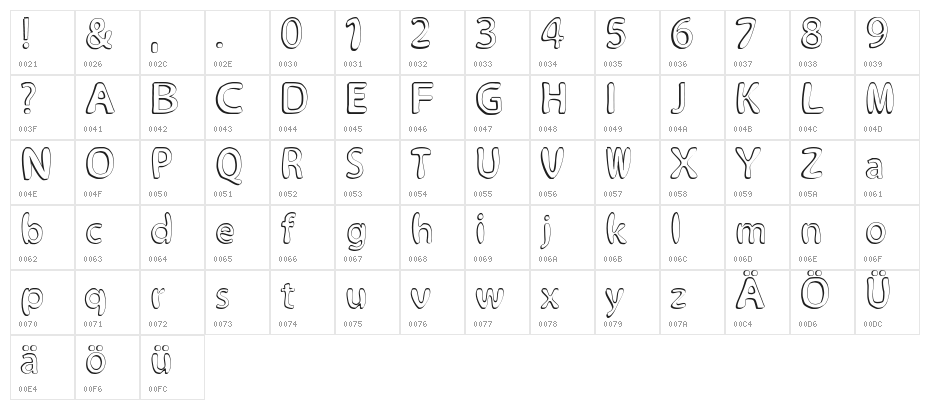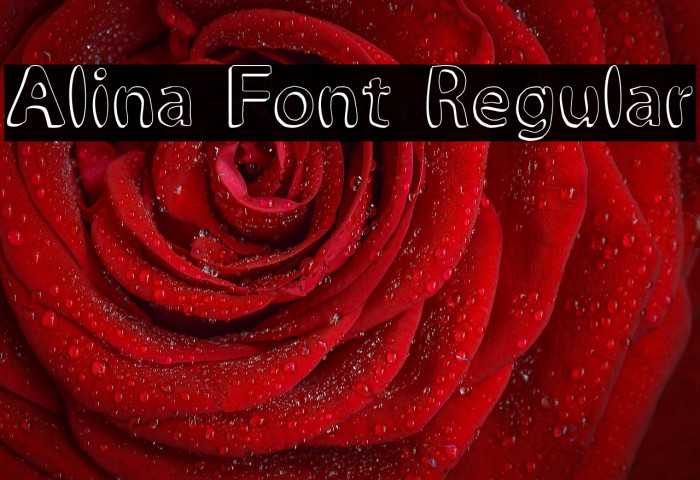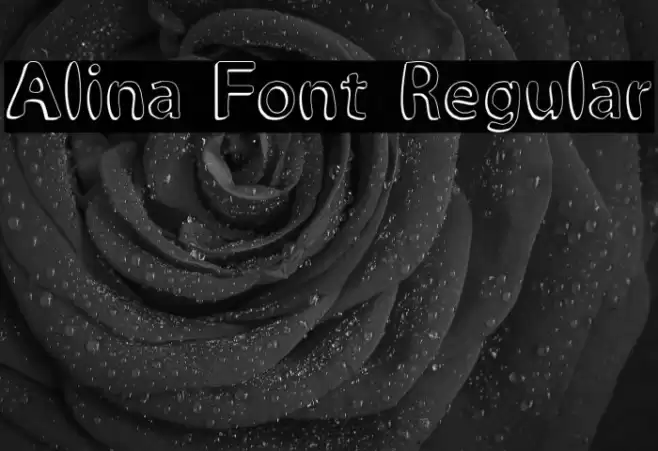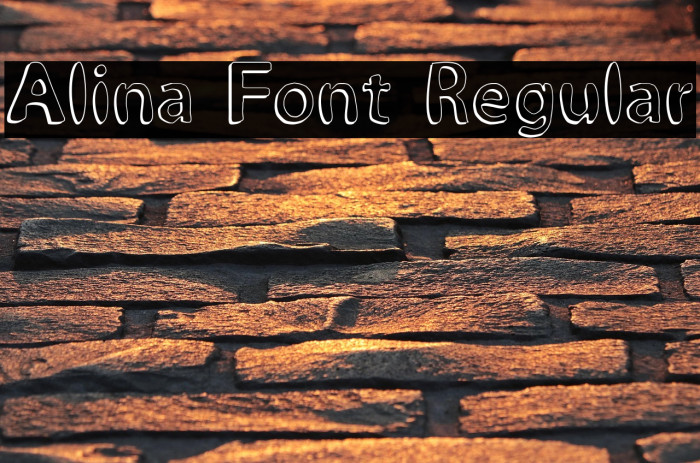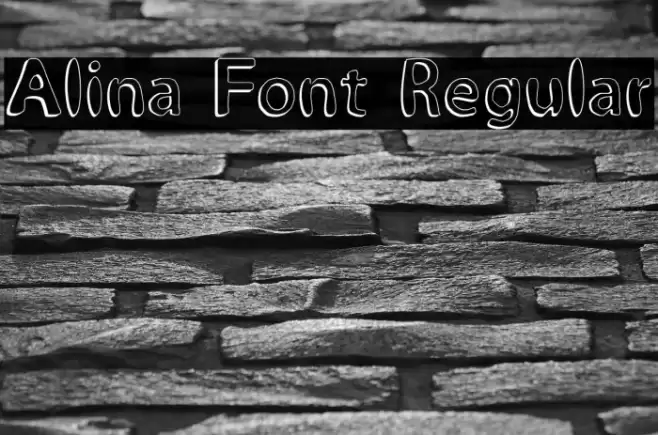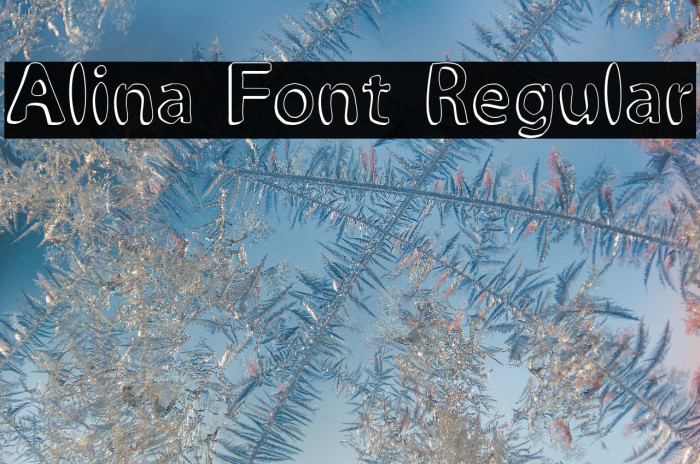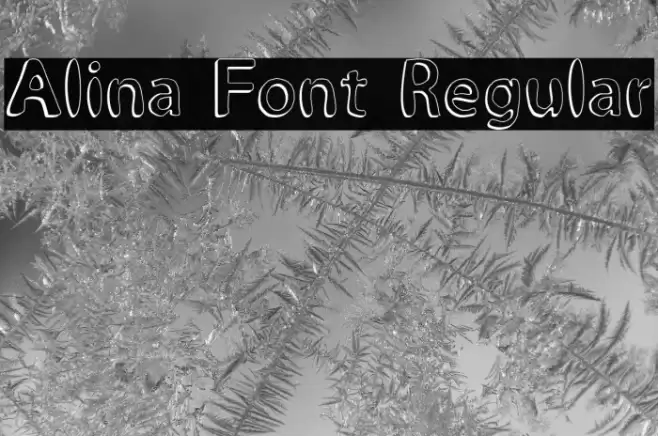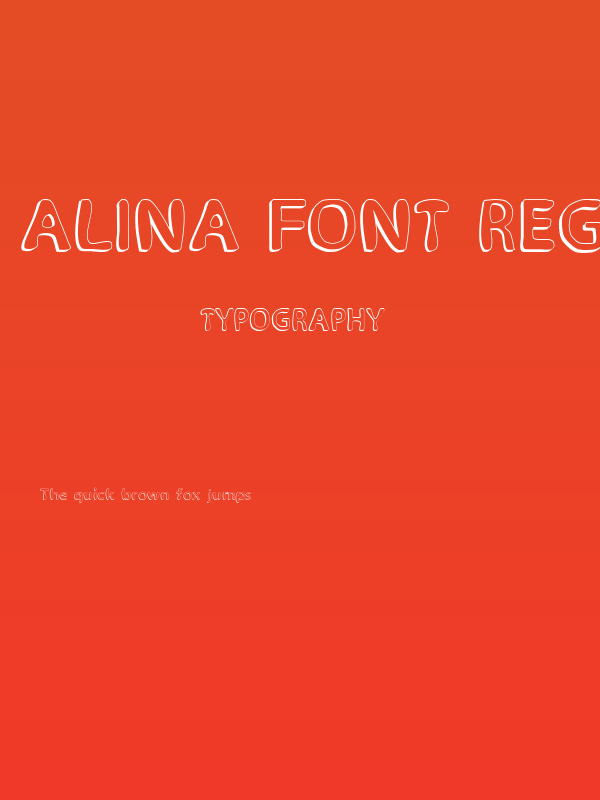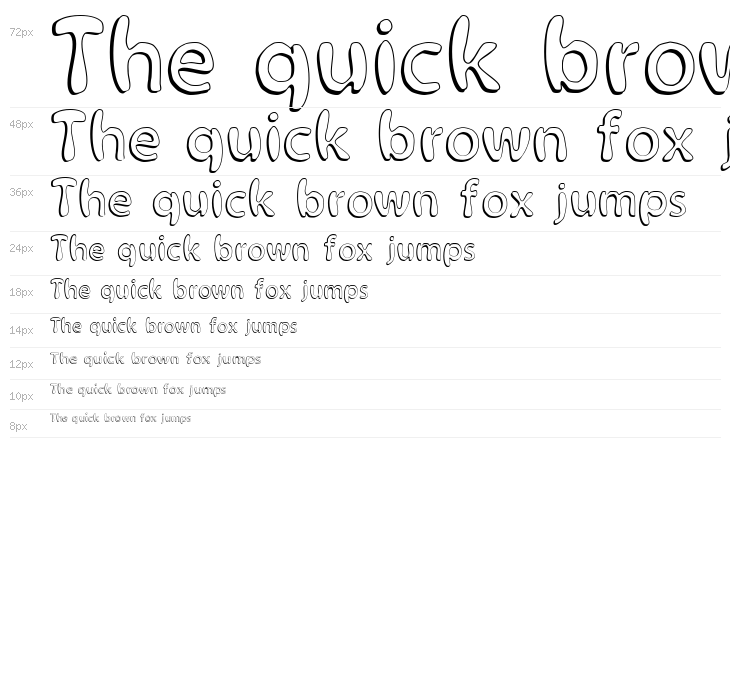
Alina Font Regular Font
Alina Font Regular Description
This font features a playful and whimsical design with a hand-drawn aesthetic. Each character is outlined with a bold, consistent stroke, giving it a cartoon-like appearance. The letters are rounded and slightly irregular, adding to the casual and friendly feel. The uppercase and lowercase letters maintain a uniform style, while the numbers and special characters complement the overall look. This font is ideal for projects that require a fun and approachable vibe, such as children's books, playful branding, or creative posters.
| Overall Style | Whimsical |
| Proposed Projects | Ideal for children's books, playful branding, creative posters, and casual invitations. |